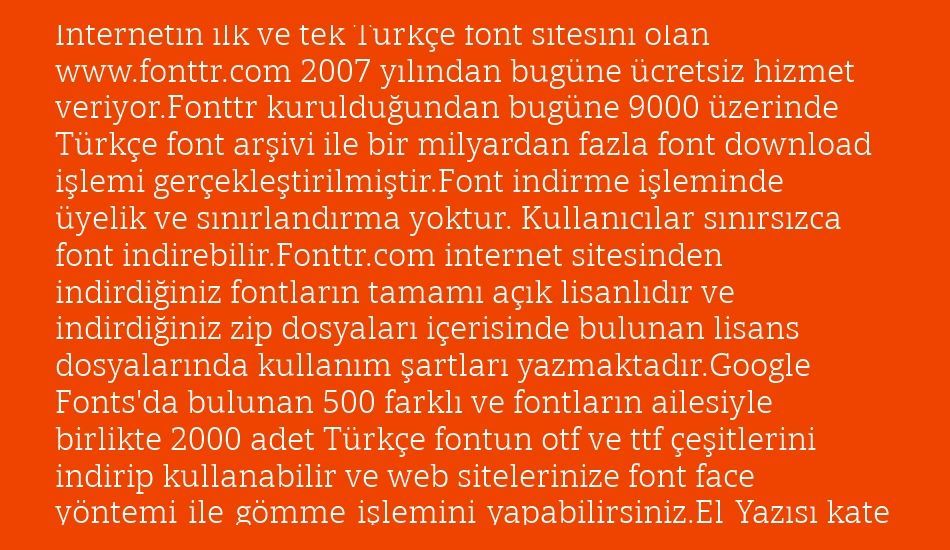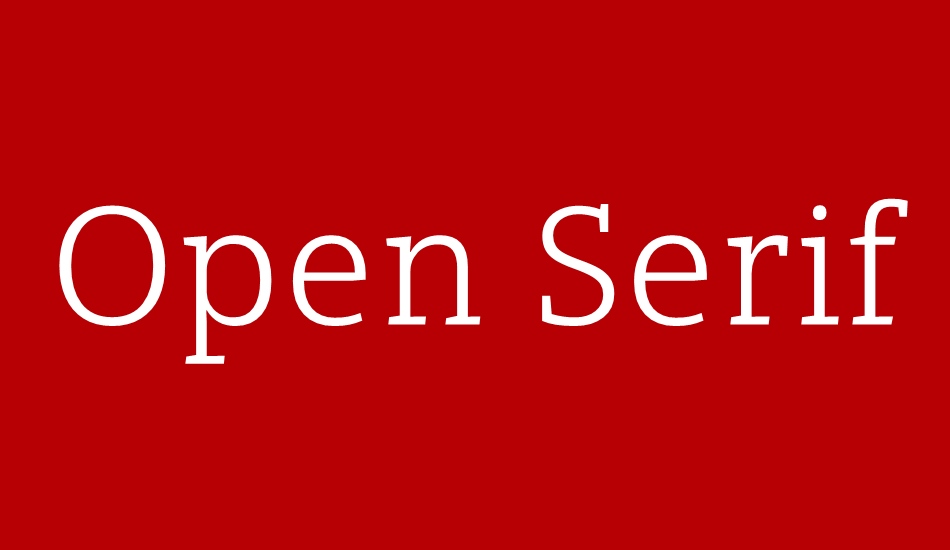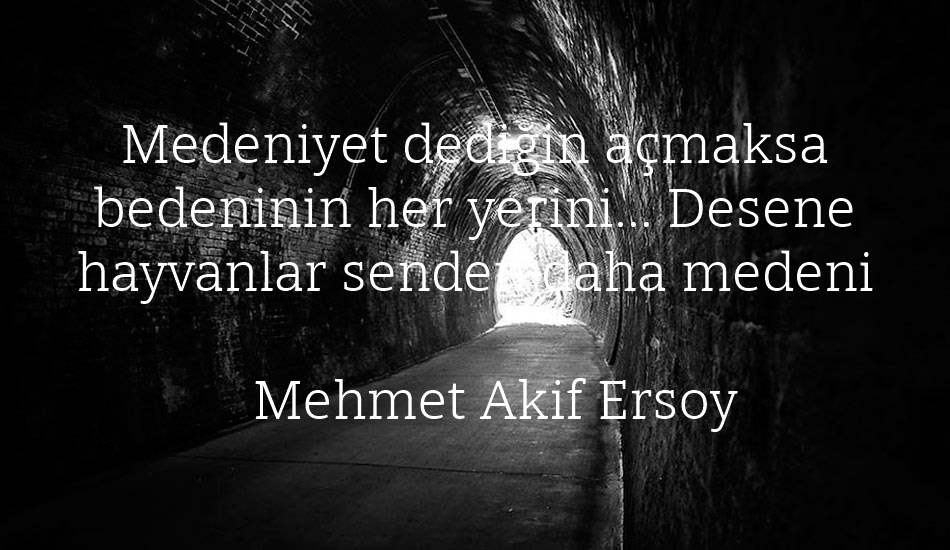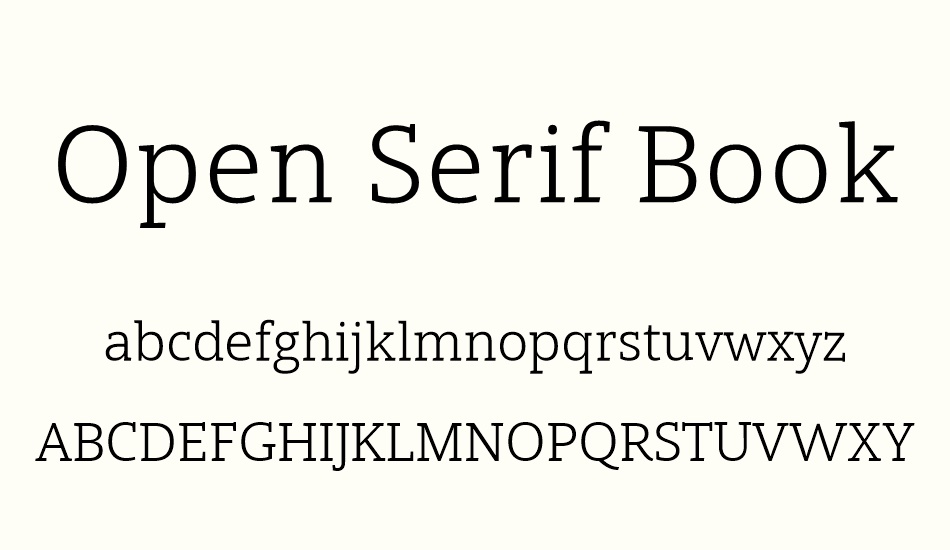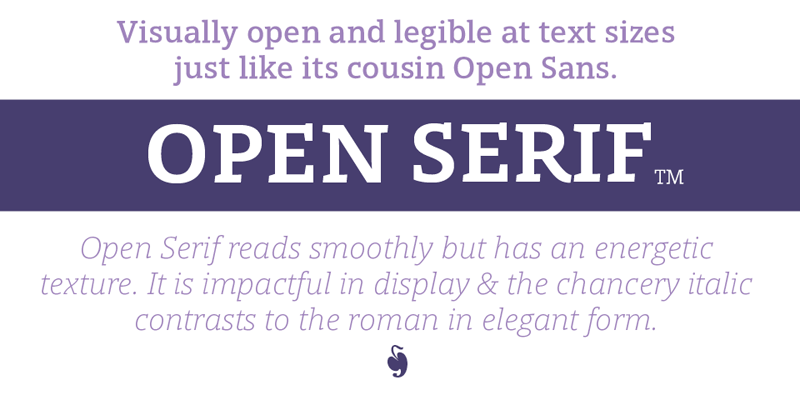
Open Serif font
Open Serif is the perfect text font to complement Open Sans (the most widely used typeface family on the internet!).
Open Serif Book font